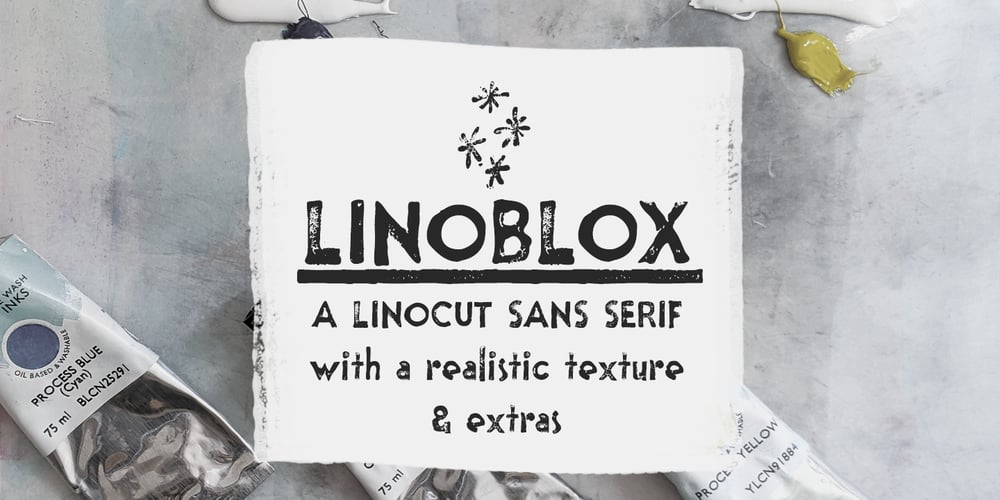
Linoblox Font Family was designed by Ana Parracho and published by Ana’s Fonts. Linoblox contains 4 styles and family package options. Linoblox is a sans and ornaments font family made using hand-carved linoleum, based on my Bloxhall art deco font.This collection has a quirky handmade look, but can also be used in retro and vintage designs, such as collages. The fonts have a realistic ink stamp texture that will look great in logos, notes and quotes, social media posts, and branding and packaging.Linoblox includes: Linoblox font in three variations: regular, jumpy and underlined An ornaments font, with doodles, swashes, smudges and frames (Please note: this is the same set of ornaments as the Notes From Home serif font)